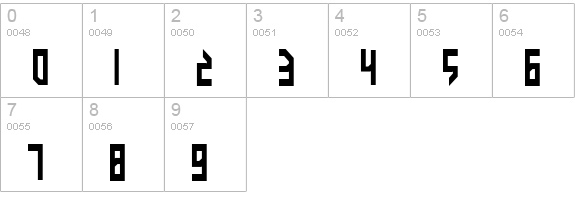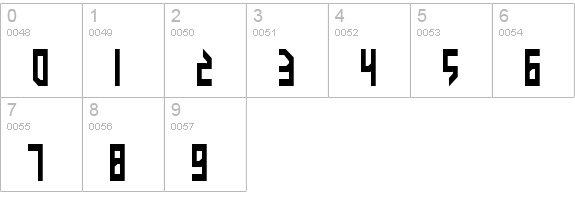
Valkyrie Bold is a strong, high-contrast variant in the Valkyrie typeface family \xE2\x80\x94 well suited to headlines, attention-grabbing titles, and strong calls-to-action.
Valkyrie Bold font is a stunning and powerful typeface that exudes strength and elegance. With its bold and dynamic letterforms, this font is perfect for making a bold statement in your designs. Whether you are creating posters, logos, or branding materials, Valkyrie Bold will give your projects a modern and eye-catching look. The best part is that Valkyrie Bold font is completely free to download at FontsMarket.com. You can easily access this high-quality font and use it in your personal or commercial projects without any cost. Don't miss out on the opportunity to add Valkyrie Bold to your font collection and take your designs to the next level. Download it now and unleash your creativity!